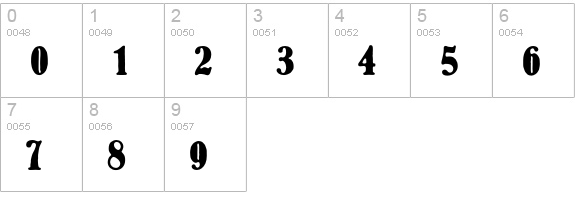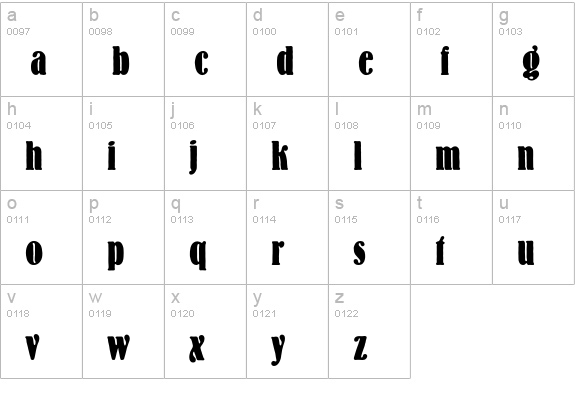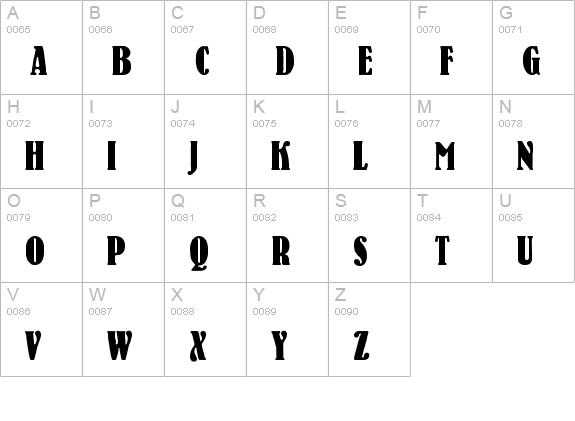
AkronBoldCondensed Font Details
AkronBoldCondensed is a striking and modern font that exudes confidence and professionalism. Its condensed design makes it perfect for creating impactful headlines and eye-catching displays. The bold weight of this font ensures that your message will be communicated with authority and style. What sets AkronBoldCondensed apart is not only its bold appearance but also the fact that it is available for free download at FontsMarket.com. This means that you can easily access this versatile font and use it in your projects without any cost. Whether you're designing a poster, logo, or website, AkronBoldCondensed will add a touch of sophistication and boldness to your work. Download it today and elevate your designs with this exceptional typeface.